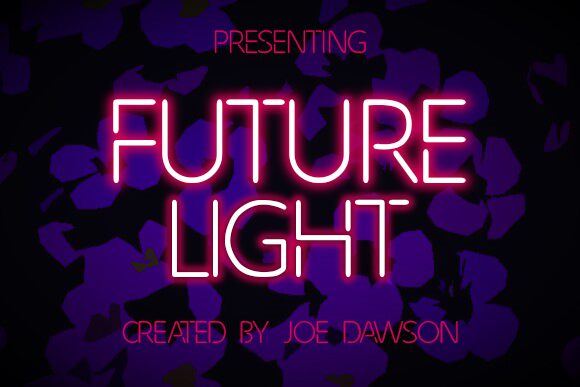
Future Light Italic is a cyber-punk-styled display font designed by Joseph Dawson. Its dynamic future-neon-styled aesthetic will add a cool touch to all your designs and sci-fi themes.